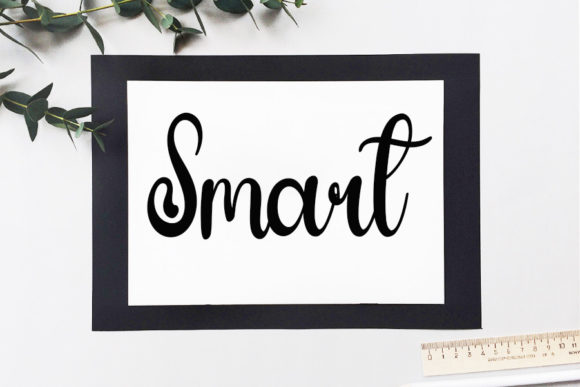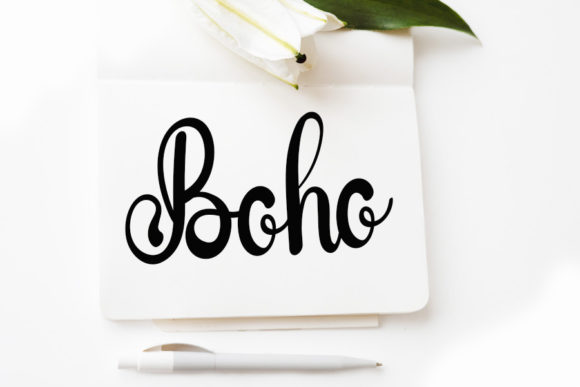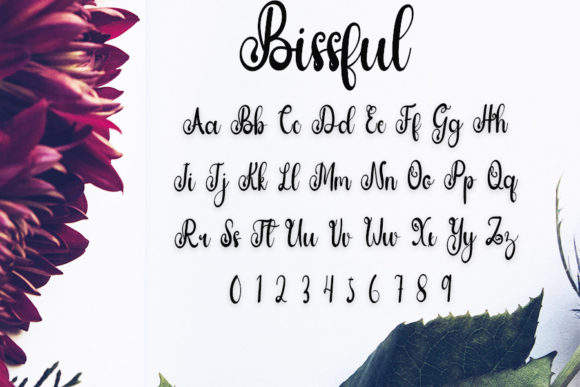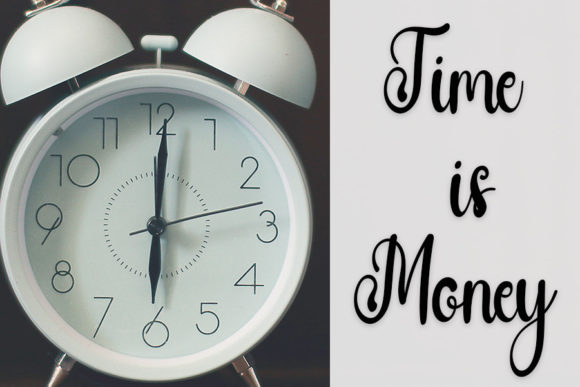
Blissful Font
About Blissful Font
Introducing Blissful, a stylish handwritten font that effortlessly embodies a contemporary atmosphere with impeccable form, drawing inspiration from the timeless allure of classic calligraphy. This font is a carefully curated blend of sophistication and modernity, featuring balanced and varied letterforms meticulously designed to enhance the beauty of your projects.
Blissful’s handwritten style imparts a personalized and authentic touch to your designs. Each letter is thoughtfully shaped to maintain an elegant form, making this font an ideal choice for a diverse range of creative applications. Whether you’re working on invitations, branding materials, or any project that requires a stylish and refined aesthetic, Blissful is crafted to elevate visual appeal.
The contemporary atmosphere of Blissful allows it to seamlessly adapt to various design contexts. Its balanced and varied letterforms contribute to a dynamic yet cohesive look, ensuring that your projects stand out with sophistication. This font becomes a timeless option, transcending trends and infusing a touch of class into your creative endeavors.
An additional standout feature is Blissful’s PUA encoding, providing effortless access to a rich array of amazing glyphs and ligatures. This feature ensures that designers, regardless of their expertise level, can seamlessly explore and implement the font’s full creative potential.
Immerse your projects in the inspired elegance of Blissful, and witness how its impeccable form enhances overall beauty. Whether you’re creating promotional content, branding materials, or any design that demands a stylish handwritten feel, Blissful is your dependable font for achieving the perfect fusion of classic and modern aesthetics.
In summary, Blissful is more than just a font; it’s a design companion that brings a timeless and stylish essence to your projects. With its contemporary atmosphere, impeccable form, and the added benefit of PUA encoding, Blissful stands as a versatile and sophisticated choice for designers seeking to elevate the beauty of their creations.